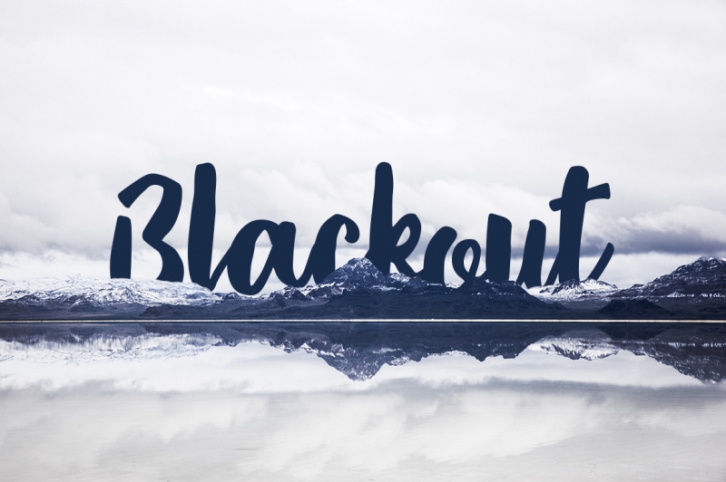
Introducing Blackout, a typeface created stylized handwriting is clearly visible charms, made more elegant impression posts and more passionate. It comes with different styles that will make a wonderful impression
Blackout Brush is handwritten stylish copperplate calligraphy fonts, combines from copperplate to contemporary typeface with a dancing baseline, classic and elegant touch. Can be used for various purposes.such as headings, signature, logos, wedding invitation, t-shirt, letterhead, signage, lable, news, posters, badges etc.